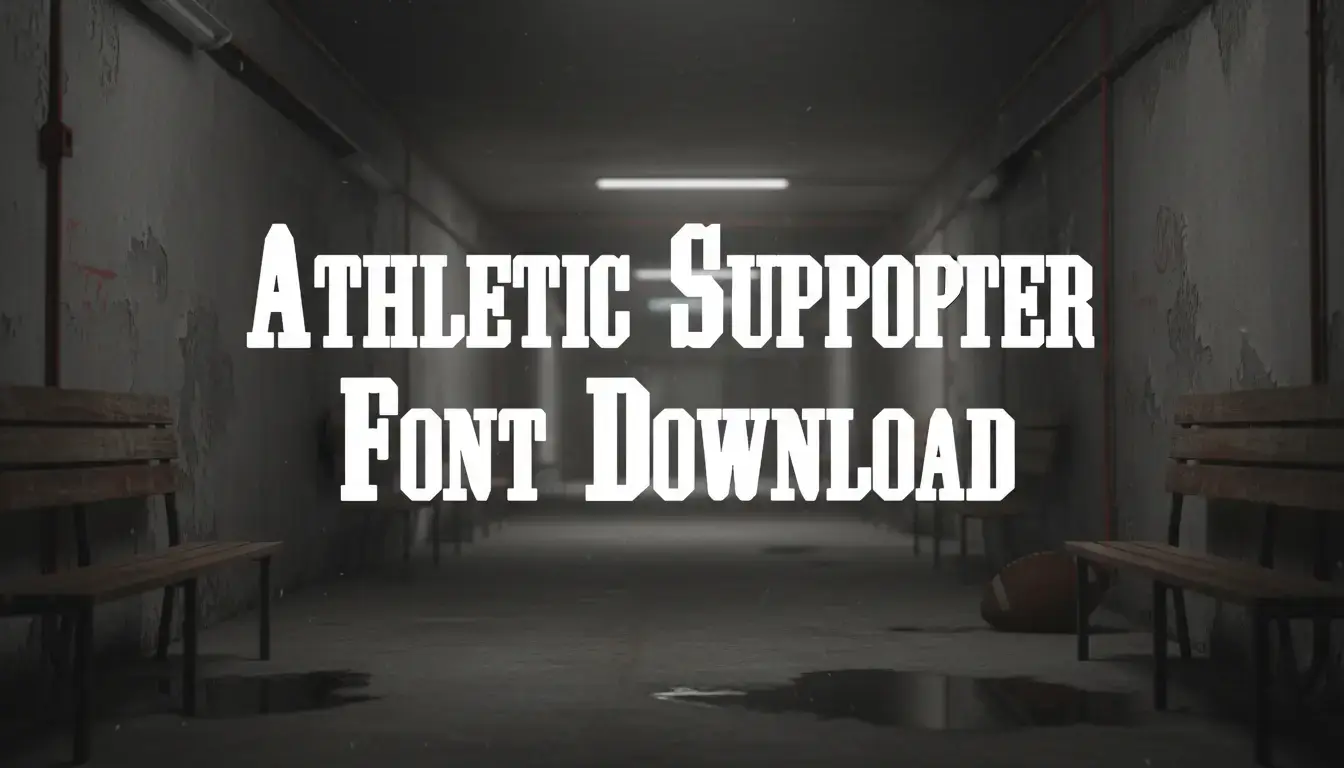
Athletic Supporter Font
Athletic Supporter Font Preview
Athletic Supporter
Athletic Supporter is a fancy font. It's a decorative display font with plenty of personality, made to grab attention. It's a free download, and you can try it with your own text in the preview above first.
Athletic Supporter Font Details
What You Can Type With Athletic Supporter
Athletic Supporter has the full alphabet in upper and lowercase. Only 8 of the ten numbers are included, so double-check dates and prices before you print anything. Common punctuation such as &, ! and ? is included as well. It doesn't include accented letters such as é or ñ, which makes it an English-only font.
Where Athletic Supporter Works Best
Athletic Supporter is a natural fit for posters, logos and eye-catching headlines. Use it for one standout word or headline and let simpler fonts handle the rest.
Does Athletic Supporter support accented letters?
No. Athletic Supporter has no accented letters such as é, ñ or ü, so it's best for English text.